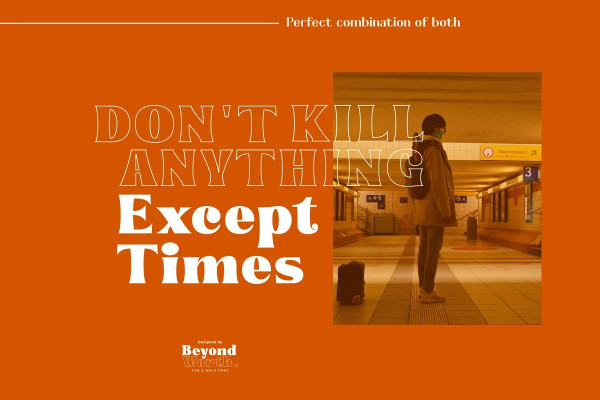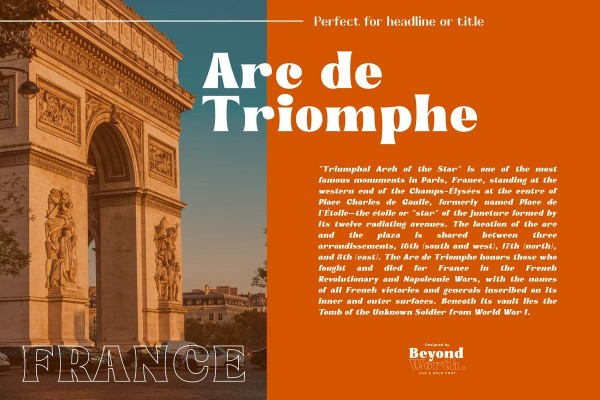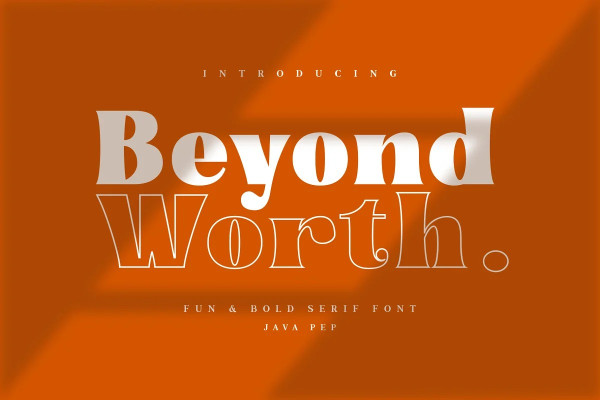
Beyond Worth Font
Beyond Worth Font, this font has a fun and bold style so your project can feel more outstanding and elegant. Beyond Worth made with regular and outline styles so you can mix and match for your design project. BeyondWorth font is perfect for headline, title, logotype, branding, bold text, etc that especially for the purpose feel outstanding and stand out.